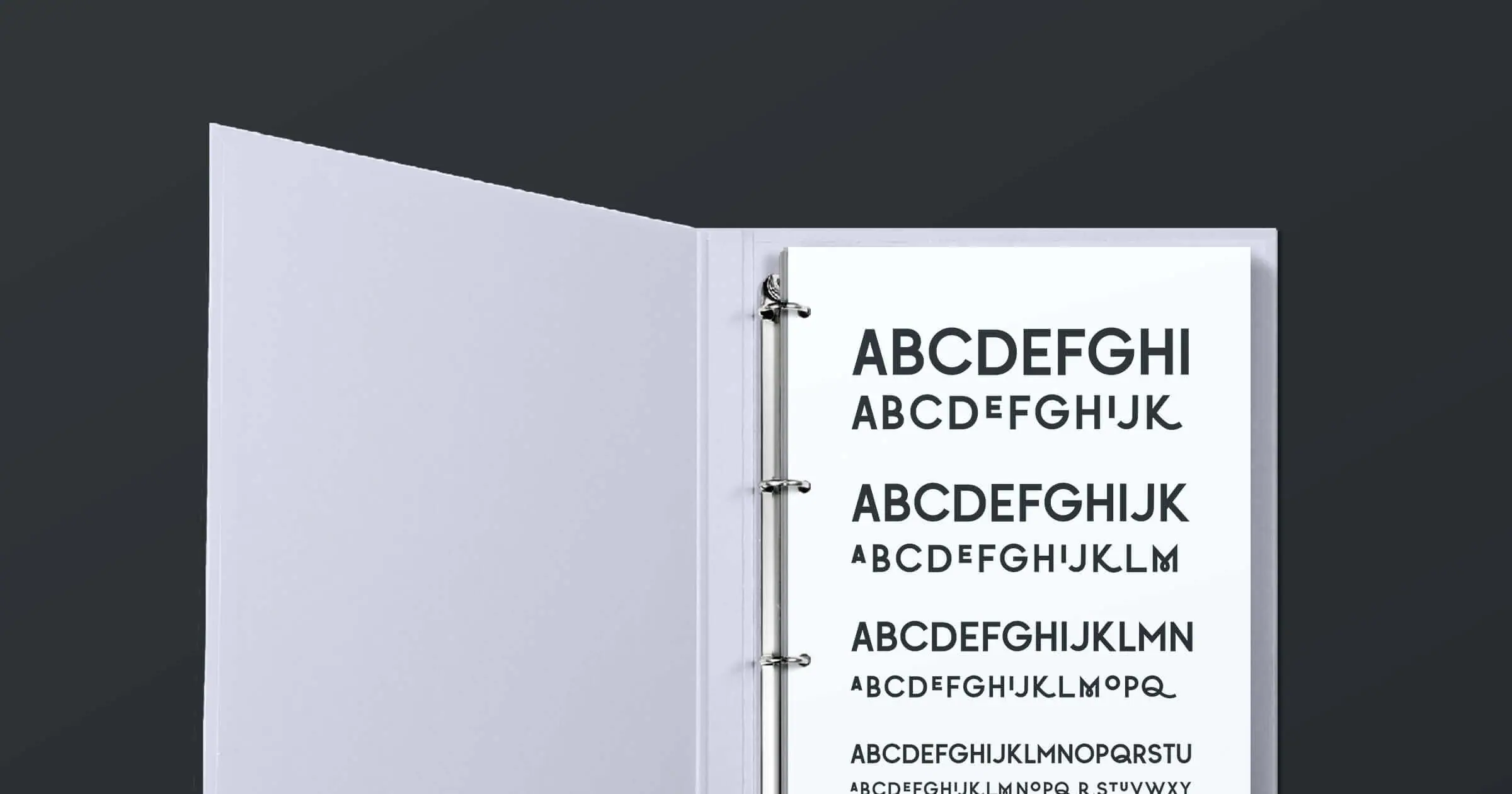
Talk to enough type designers and you’ll quickly realize something: there’s a story behind every letterform. In this Behind the Font series, we’re on a mission to reveal the creative process behind some of the most popular font families on Creative Market. This time around, we talked to Alex Cottles – the talented designer behind Quirk.
1. What inspired you to design Quirk? Where does your creative process usually start?
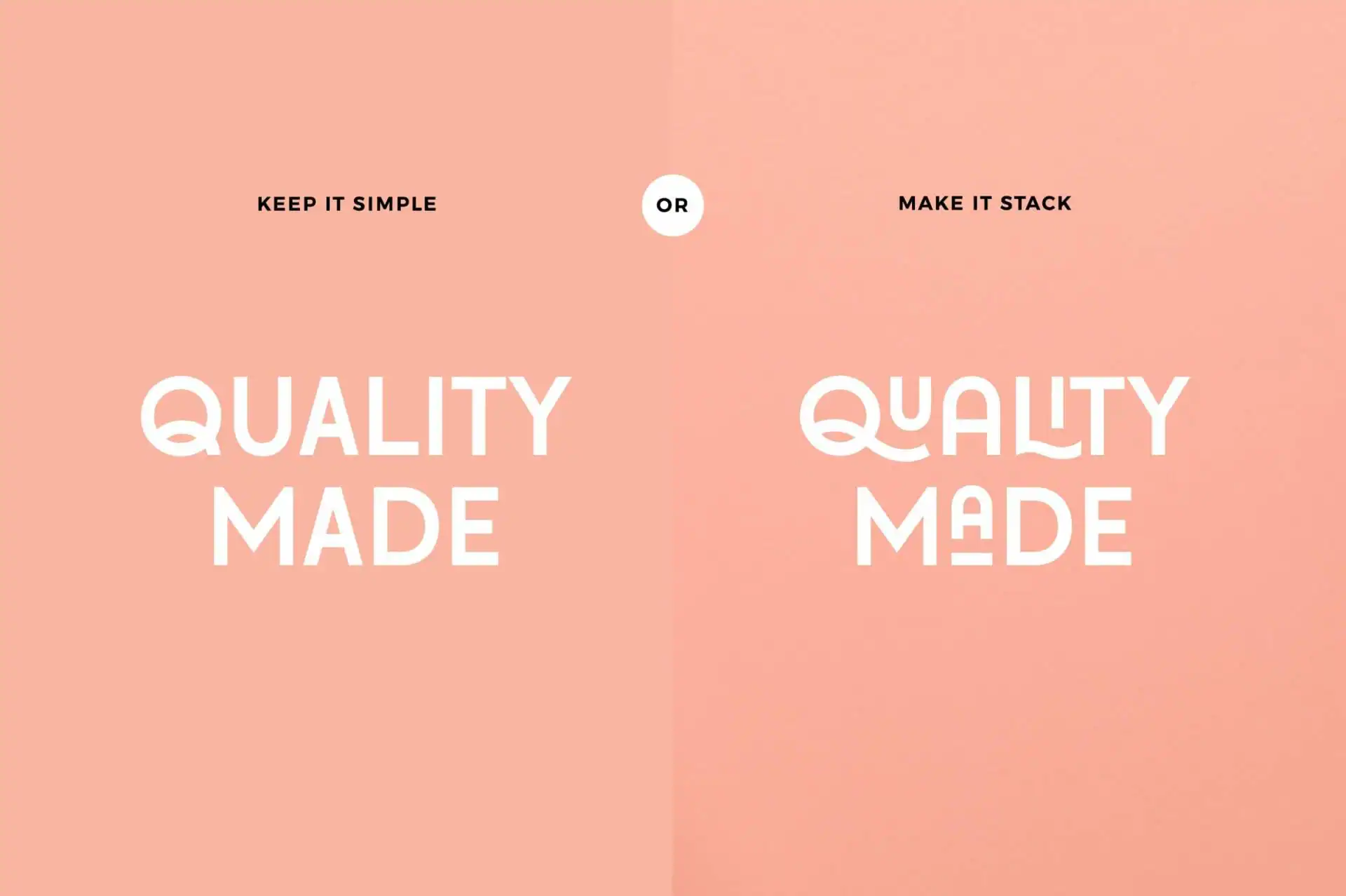
First of all, thank you for having me! It’s always an honor to be interviewed in any capacity, so I really appreciate it. What inspired me to design Quirk was what inspires me to design any typeface, which stems from being a brand designer in itself. It’s the process of manipulating type to create a logo mark – that’s usually when an idea sparks.
Letterform ideas usually come up in that process. Sometimes I design them specifically for a logo mark and it doesn’t get selected, or it isn’t the right fit. Then I decide to build the letterforms out into a full typeface.
Quirk wasn’t crafted for a specific logo mark. I was manipulating type for specific letterforms, including Q and K, where I had the little slippery ligature mark coming off. I was also seeing a trend of different stackable letterforms, swooshes, ligatures, and all of that good stuff. At the time, I didn’t see many fonts built that way, so that’s what inspired me to create it.
2. Why did you name it Quirk?
The name I come up with last, typically. I want to get the idea for the font first and test it out with different names to see how it looks. You want to showcase it in its best light. With Quirk, I had started playing with the Q and the K first.
Another story behind the name is that my husband and I find it funny when someone self-describes as quirky because, to me, someone who is truly quirky isn’t necessarily aware of that. It’s just such a part of them. But looking at this font, we felt the opposite. It was born to be quirky.
Apart from that, we lived in Richmond, Virginia, here in the U.S., and there was a hotel called Quirk here, not Quirky, but just Quirk. And that homonym also inspired me.
3. How has your style evolved since you first started your craft?
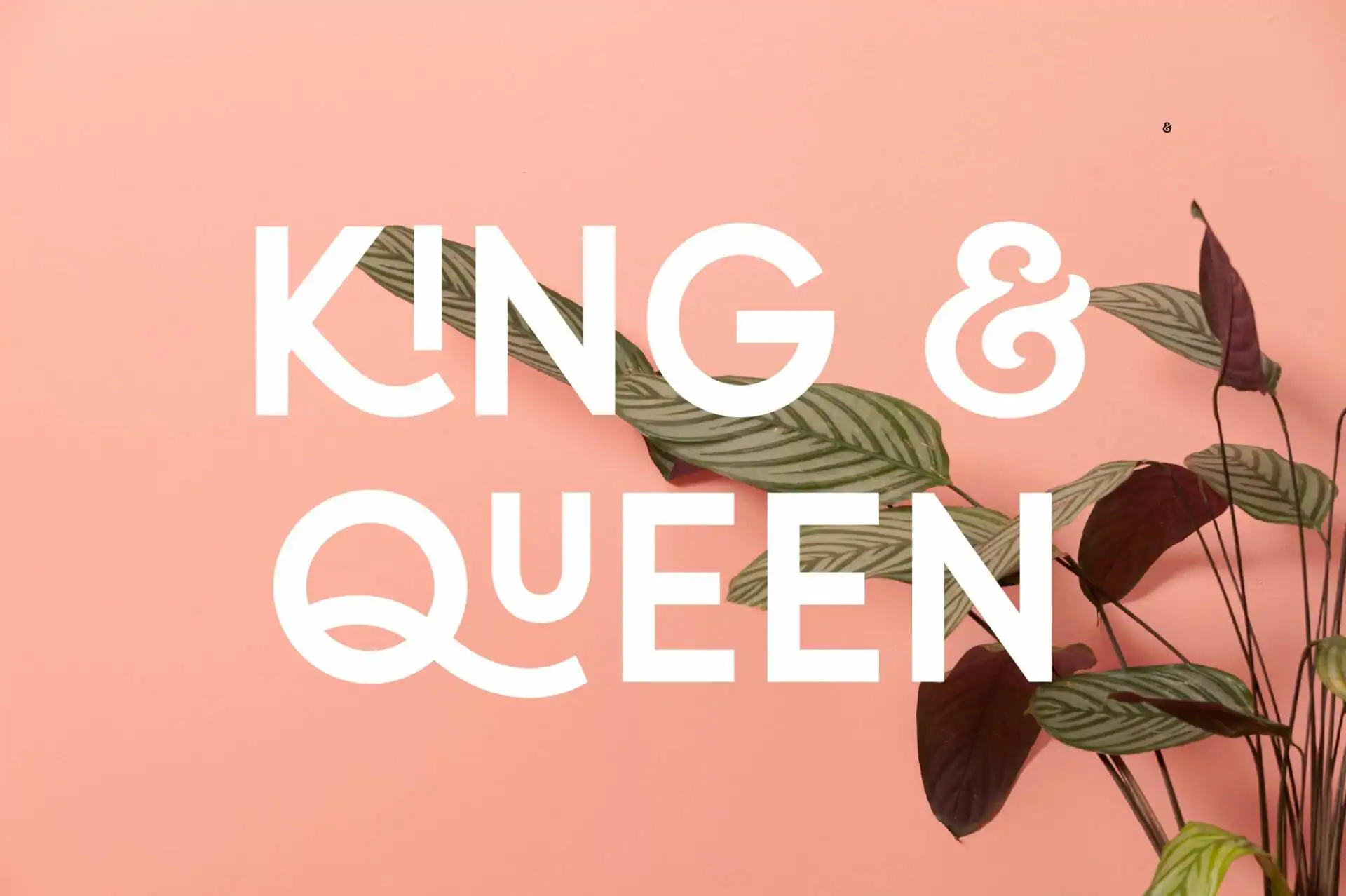
The longer I do it, the more I do start to recognize my design style. In the beginning, I had a clear approach: I wanted to design modern and minimal. I was in such a learning phase, and I still am. Just constantly evolving.
When I started, I was trying to do whatever worked. Throwing stuff at the wall to see what stuck. Whereas now, I design something to be very minimal and modern, but I also want it to have some element of quirk or androgyny.
I’m constantly trying to balance feminine and masculine, professional and approachable. As more businesses go online, that type of balance is key. However, as a logo and brand designer, my style blends to whatever is called for on the project. In general, it still remains minimal and modern.
Some designers do have a super feminine style, and that’s great. Some designers have a super masculine style, and that’s great, too. I enjoy both, so that’s why I design my business to fit somewhere in the middle there. I’m a firm believer of this spectrum; my designs usually fall somewhere in the middle, and I enjoy it because it’s somewhere I can live.
4. Some say that finding the perfect font feels like falling in love. Please describe a brand that would be a great match for Quirk.
I think what makes this font cool is that, just like my design style, it can run the gamut on where you see it. I’ve seen it used for everything from corporate gift boxes to a laundromat. A lot of designers will actually use it within their logo, which is always a big honor to see.
Font design is a huge creative outlet for me. To know that someone’s getting genuine enjoyment out of playing with the font or using it for business in some form is a really cool feeling for sure.
5. How would you define your typographic design style?
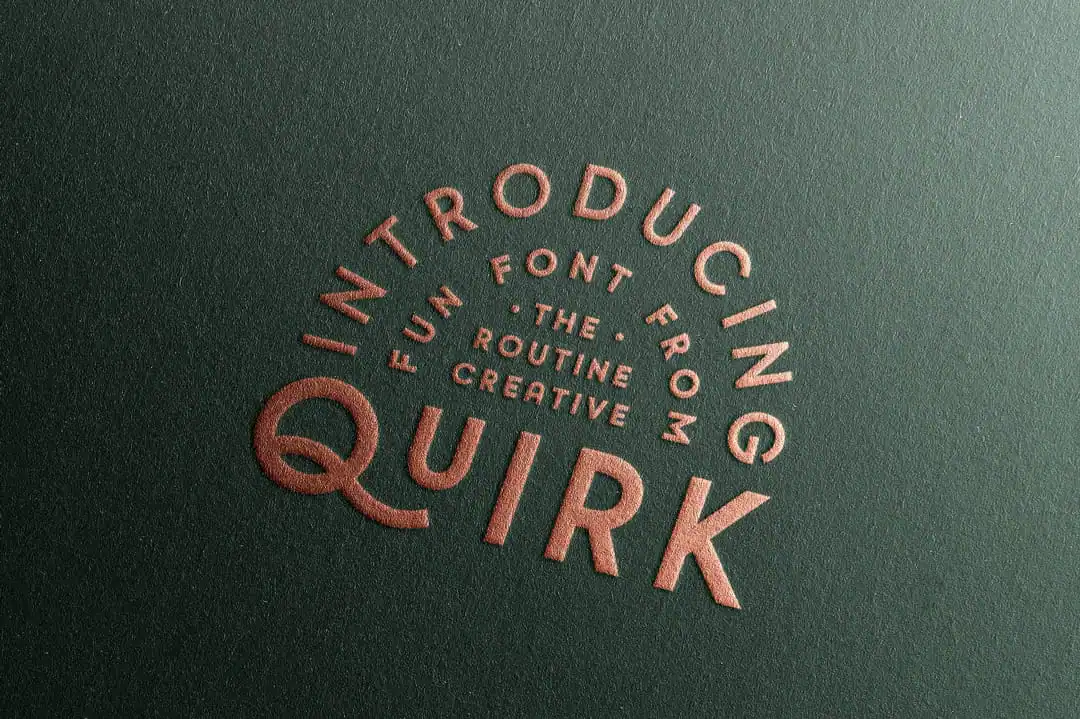
For font design, I love vintagey, masculine styles. That’s what I’ve been dabbling with lately and what I’m most drawn to. I don’t feel like there are enough of those typefaces out there, in my opinion.
I do dive into specific time periods or decades that inspire a particular font. Art display fonts are typically what I’m designing; they’re creative, fun, and expressive. My goal is not necessarily to dive into the intricacies. It’s a cool thing that each font has its own story and personality.
6. What advice do you have for aspiring typographers looking to build a brand? Any specific resources or tools?
I think it really depends where you are in your journey. In the beginning, you’re just like a sponge. You’re trying to absorb everything and comparing yourself to others. You just say: “I want to be able to design like that. I want a style that looks like that.” I think that’s a good thing because you’re naturally attracted to it. You’re gravitating towards it, and it gives you something to work towards and evolve into.